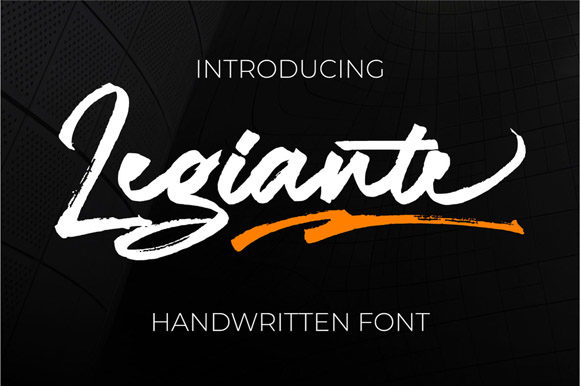
Legiante Font
Dive into the enchanting world of Legiante, a script font family that exudes an air of individuality and authentic charm. Flamde Studio, with their artistic vision, has crafted this captivating font that appears as though it were carefully handwritten with a brush pen on real paper. The quick, dry strokes and distinctive style of Legiante make it an ideal choice for designers and creatives looking to make a lasting impression.
Unleash your creativity and let Legiante elevate your branding projects to new heights. Its unique character lends itself perfectly to logos, invitations, social media graphics, and more. Each letter, meticulously crafted, dances across the page with a life of its own, captivating your audience and inviting them into your unique narrative.
With Legiante, your words become art. Its versatile nature allows you to effortlessly convey a wide range of emotions and messages. Whether you seek to create a sense of elegance, whimsy, or raw authenticity, Legiante possesses the transformative power to breathe life into your designs. Experience the joy of expressing yourself through typography that speaks volumes.
Explore the endless possibilities of Legiante, where imagination meets artistry. Its handwritten charm adds a touch of warmth and humanity to your digital creations, making them resonate with your audience on a deeper level. Embrace the beauty of imperfection and embrace the uniqueness that Legiante brings to your design arsenal.